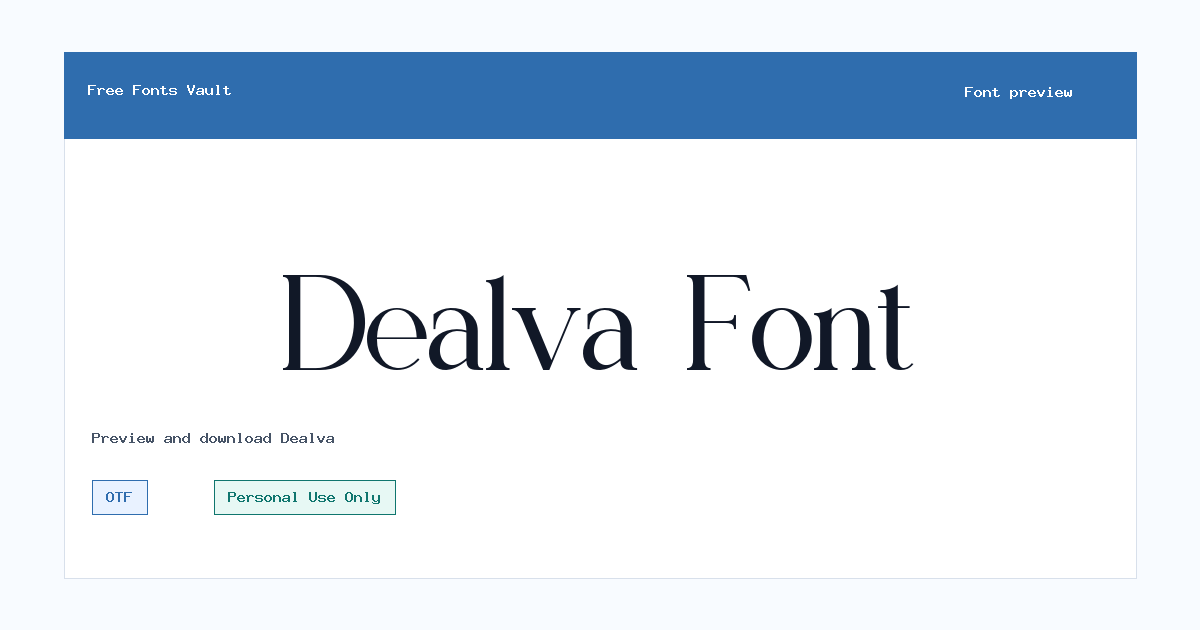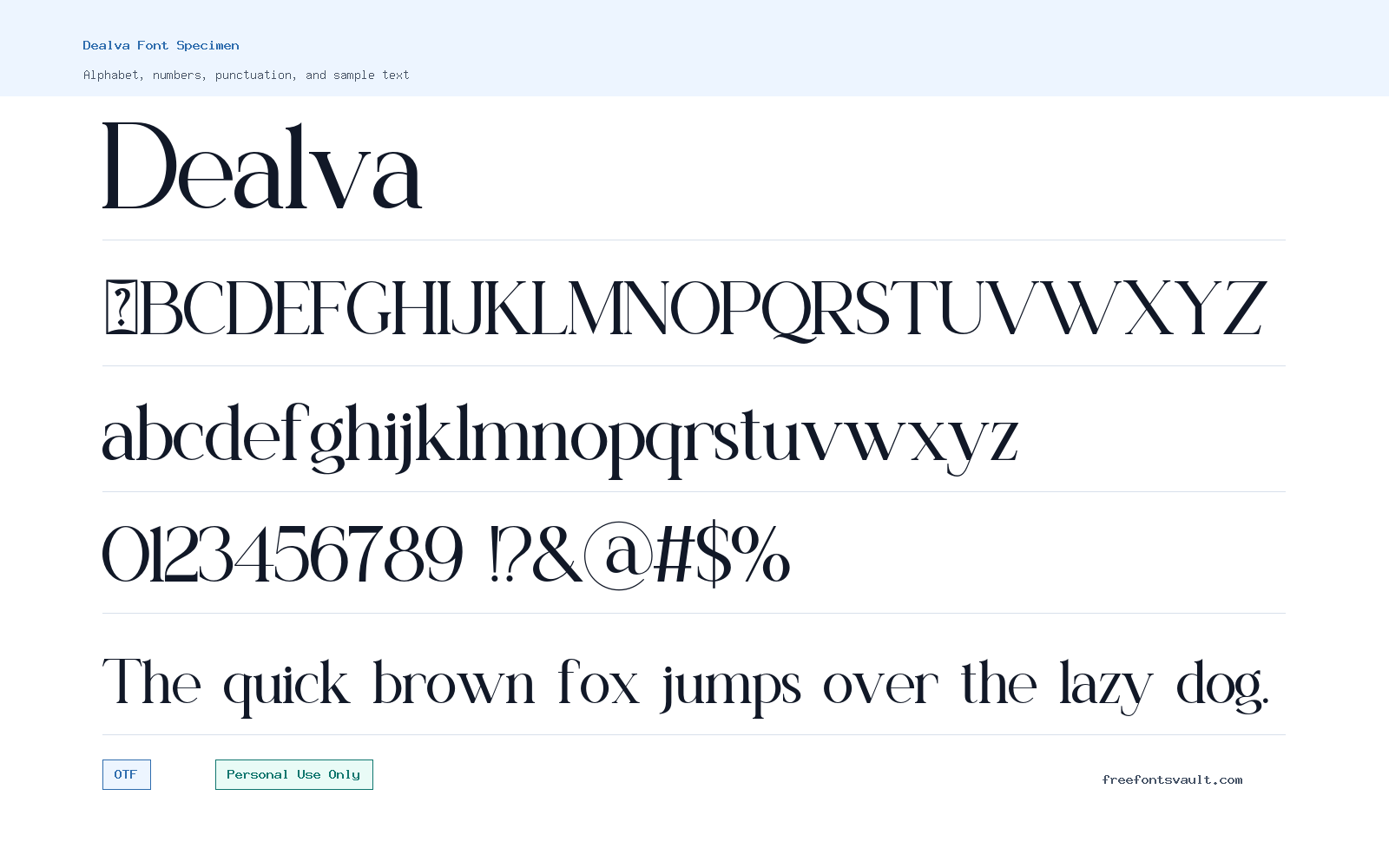
Dealva
Dealva font.
Dealva is a serif font from ErmediaStudio with a regular OTF style for personal design work. It is best approached as a display or short-text font: preview your own words first, then check the license before using it beyond private projects.
About Dealva Font
Dealva is listed as a serif font, and the download package contains a regular OTF file with normal style and 400 weight. Because only one style is included, it works best when you need a single, consistent voice rather than a full type system with bold, italic, or multiple weights. Use the preview tool to test the exact title, name, phrase, or short line you plan to use, especially if your design depends on the shape of a few key letters.
For visitors choosing a font quickly, Dealva is a practical option for headings, invitations, quote graphics, boutique-style layouts, social posts, and other short pieces of text where a serif look is useful. Avoid relying on it for long paragraphs until you have tested readability at smaller sizes. Since there is no separate bold or italic variant listed, create hierarchy with size, spacing, color, or pairing rather than forcing artificial styles in your design app.
- Personal invitations, quotes, cards, and short decorative text
- Headings, logo drafts, social graphics, and display layouts that need a serif feel